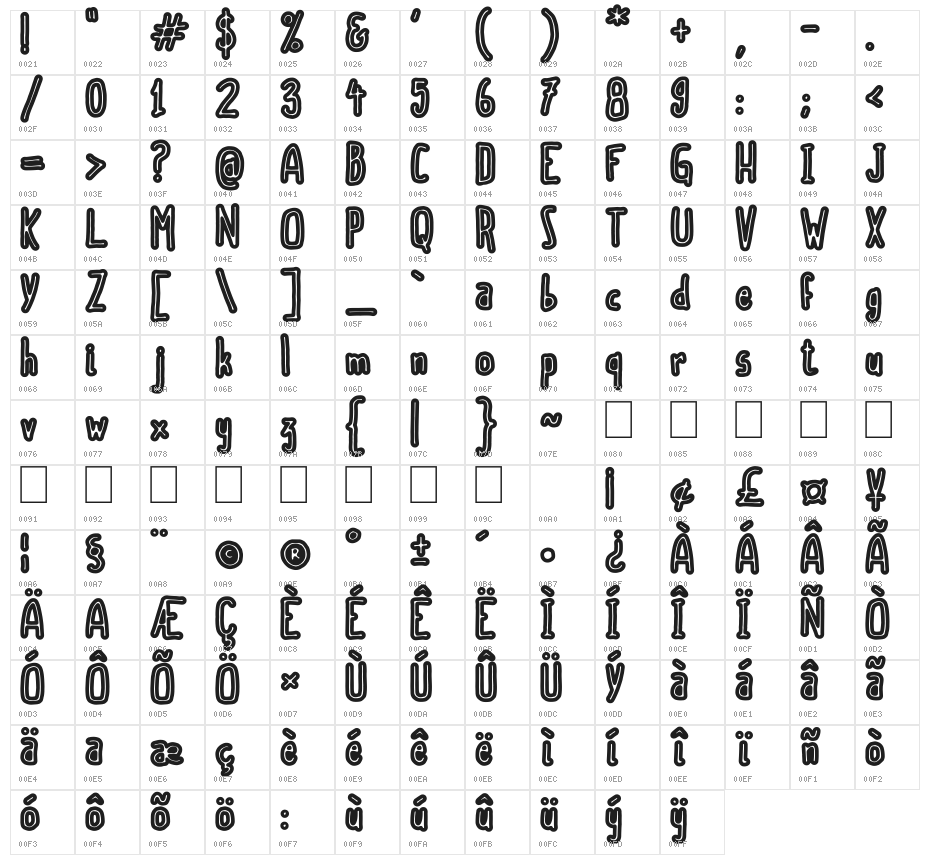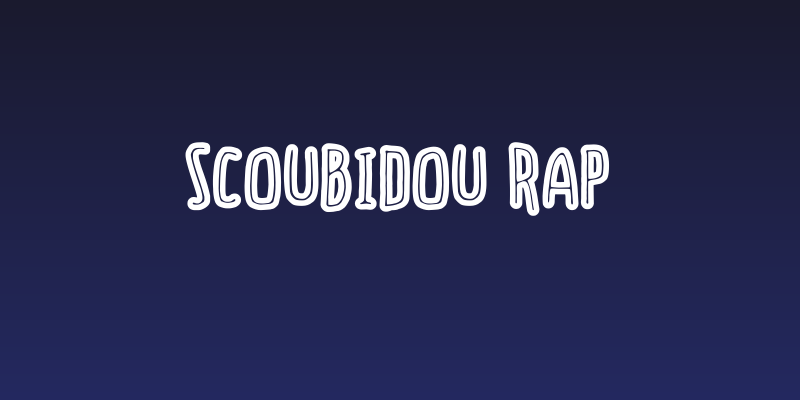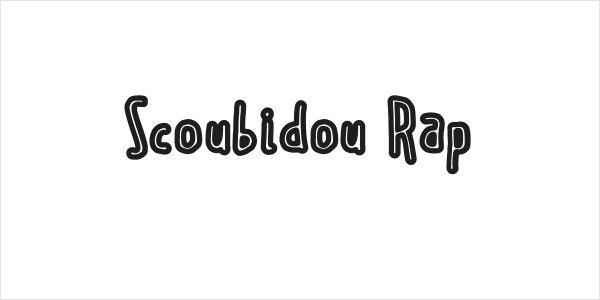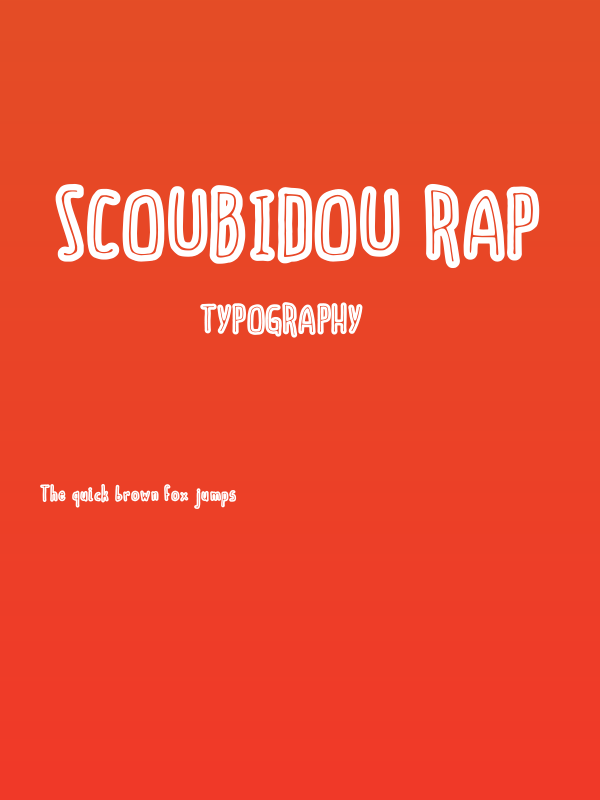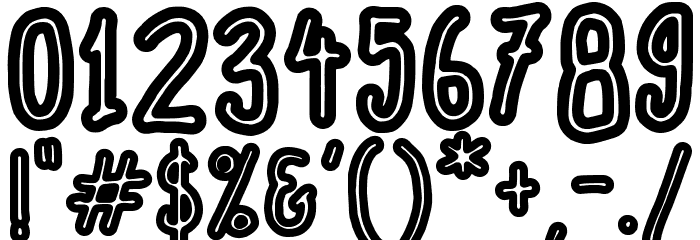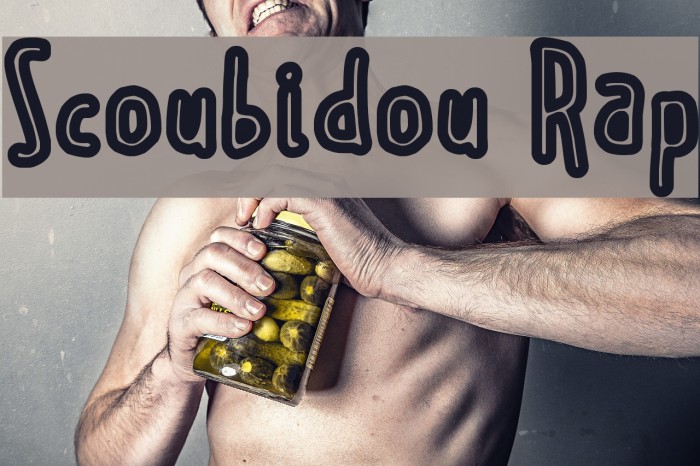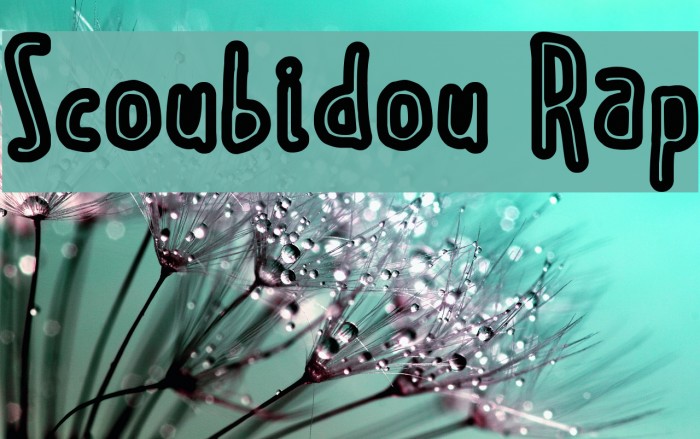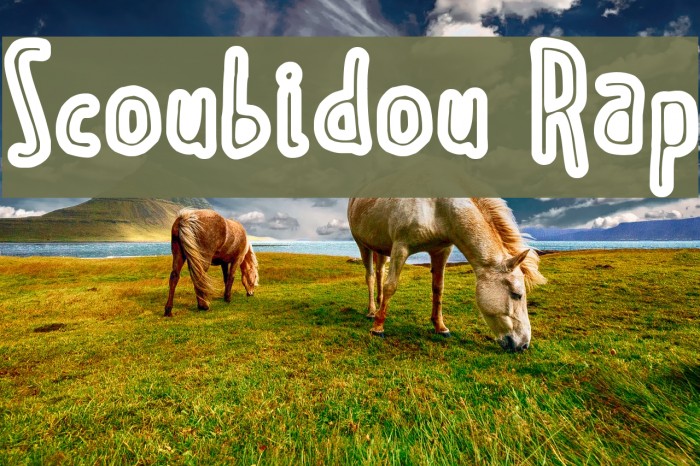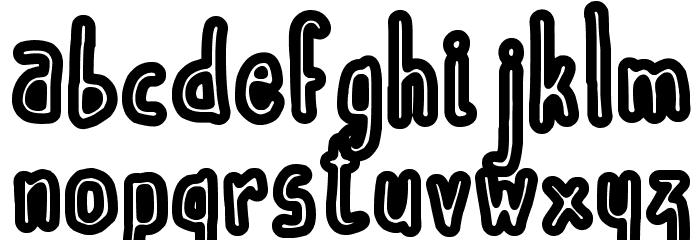
Scoubidou Rap Font
This playful and bold font features a unique, hand-drawn style with thick outlines that give it a cartoonish and lively appearance. The characters are rounded and slightly irregular, adding to the whimsical feel. The uppercase and lowercase letters maintain a consistent style, while the numerals and special characters complement the overall design with their quirky shapes. This font exudes a sense of fun and creativity, making it ideal for projects that aim to capture attention and convey a lighthearted message.
| Overall Style | Playful, Whimsical, Cartoonish |
| Proposed Projects | Ideal for children's books, comic strips, playful branding, party invitations, and creative posters. |